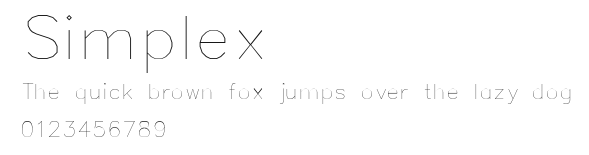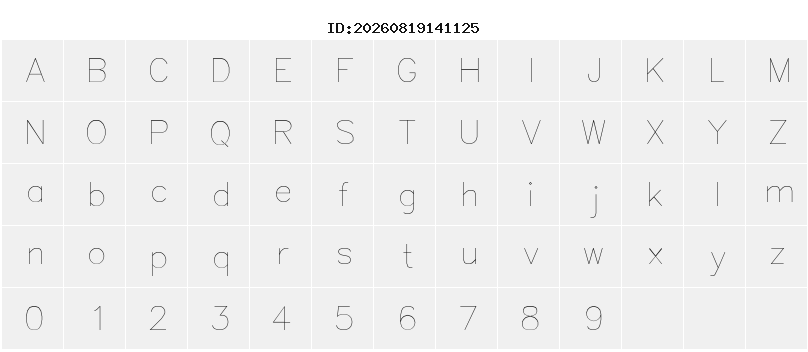
• Font Name: Simplex
• Full Font Name: Simplex
• PostScript Name: Simplex
About Simplex.ttf
Simplex.ttf is a modern, elegant sans-serif font designed for ultimate readability and visual harmony. Perfect for branding, headlines, web design, and print materials.